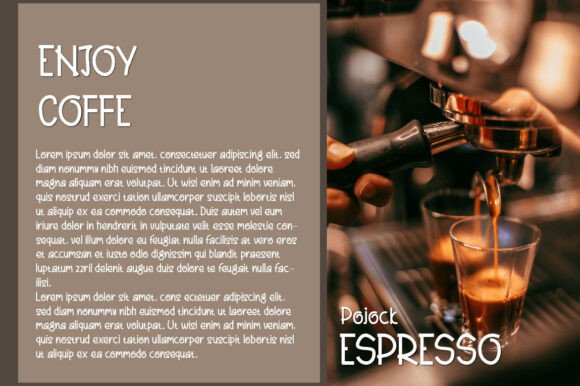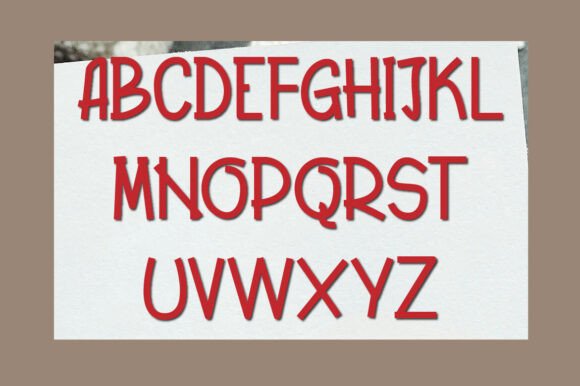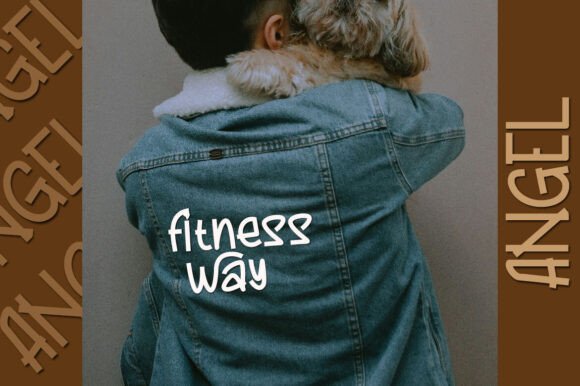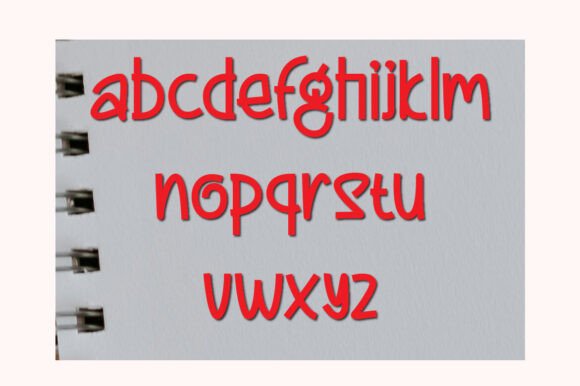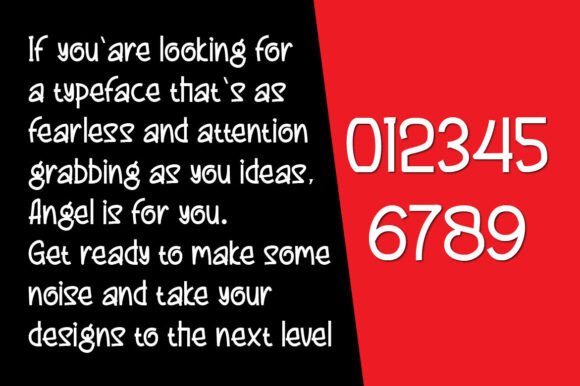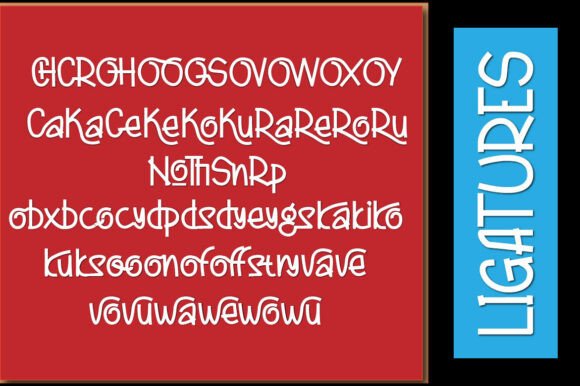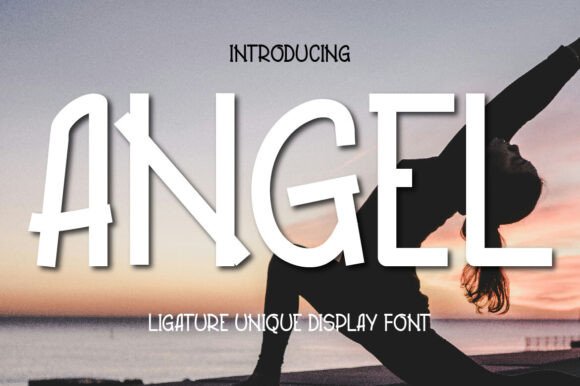
Introducing Angel Font: A Timeless Display Font for Your Creative Projects
Are you looking for a font that can add a touch of vintage elegance to your designs? Look no further than Angel Font, a remarkably distinctive display font that combines traditional allure with creative artistry. With its rich, nostalgic feel, Angel Font is the perfect choice for designers and crafters seeking to infuse their projects with a bygone aesthetic.
A Rich Homage to Bygone Aesthetics
Angel Font is a complete display font that boasts an abundant collection of uppercase and lowercase letters, numbers, alternately chic ligatures, and punctuation marks. This extensive character set allows you to experiment with various typography styles, ensuring that your designs stand out from the crowd. Whether you’re working on a poster, flyer, or any other creative project, Angel Font provides the perfect blend of classic charm and modern sophistication.
Unleash Your Creativity with Angel Font’s Extensive Features
With just a few clicks, you can experience the myriad of glyphs and enjoy the plethora of extraordinary features that Angel Font has to offer. The font’s extensive character set includes:
- Uppercase and lowercase letters for versatile typography
- Numbers and punctuation marks for added functionality
- Alternately chic ligatures for a touch of elegance
- Multilingual support to cater to diverse design needs
These features allow you to push the boundaries of your creativity, experimenting with different typography styles and techniques to create truly unique designs.
Imbuing Your Designs with a Palpable Echo of History
Angel Font is imbued with a nearly palpable echo of history, transporting your designs to a bygone era of classic elegance and sophistication. The font’s vintage feel is perfect for designers and crafters seeking to create:
- Retro-style posters and flyers
- Vintage-inspired branding and packaging
- Elegant wedding invitations and stationery
- Timeless magazine and newspaper layouts
With Angel Font, you can add a touch of nostalgia to your designs, making them instantly memorable and impactful.
Elevate Your Modern Design Endeavors with Angel Font
Angel Font is your quintessential tool to enrich your modern design endeavors. Whether you’re a seasoned designer or a crafty DIY enthusiast, this versatile font provides the perfect blend of classic charm and modern sophistication. By incorporating Angel Font into your designs, you can:
- Add a touch of elegance and sophistication
- Create visually striking typography
- Stand out in a crowded design landscape
- Produce timeless designs that transcend trends
So why wait? Discover the creative possibilities of Angel Font and elevate your designs to new heights of elegance and sophistication.
Get Ready to Experience the Magic of Angel Font
Ready to imbue your next project with a vintage feel? With Angel Font, you can:
- Experiment with various typography styles
- Explore the font’s extensive character set
- Unleash your creativity and push design boundaries
Join the ranks of designers and crafters who have already discovered the magic of Angel Font. Get ready to transform your designs with this timeless display font, and experience the perfect blend of traditional allure and creative artistry.